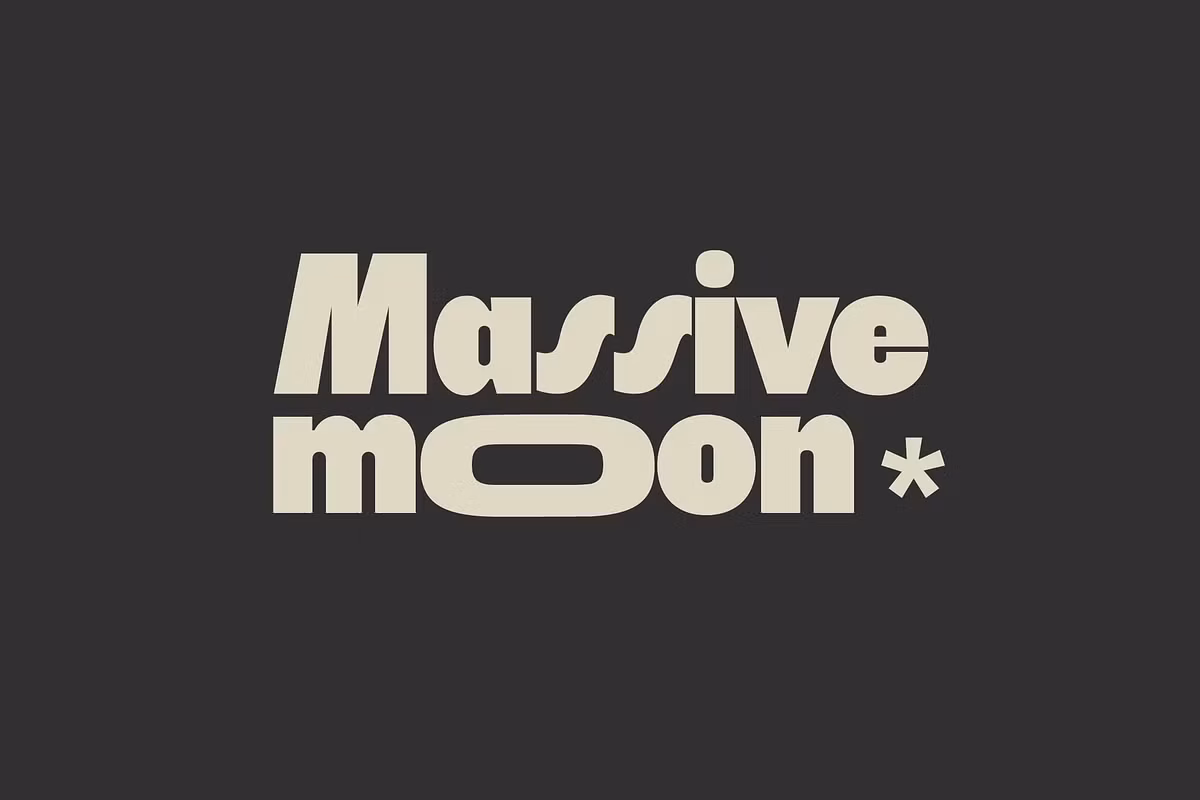
Make a bold statement with Massivemoon Font Free Download. This modern display font features strong, geometric letterforms, designed to grab attention with its clean, powerful style. Perfect for branding, headlines, posters, logos, social media graphics, and any project that requires impactful typography.
Massivemoon's unique structure and dynamic shapes give your designs a futuristic and high-energy feel. It includes uppercase and lowercase letters, numerals, punctuation, and multilingual support, making it versatile for both digital and print use.